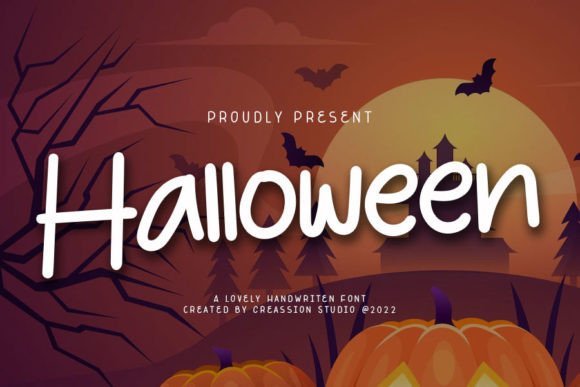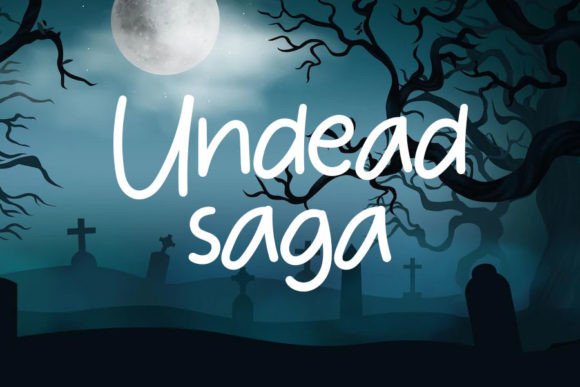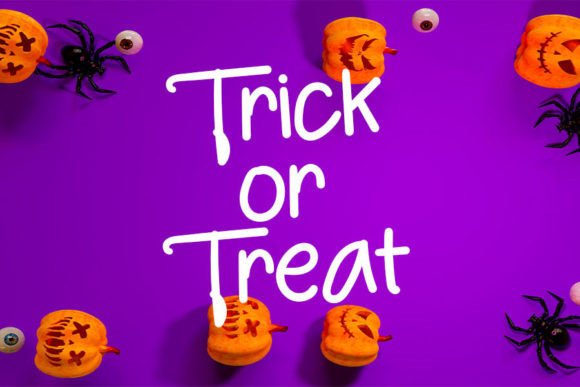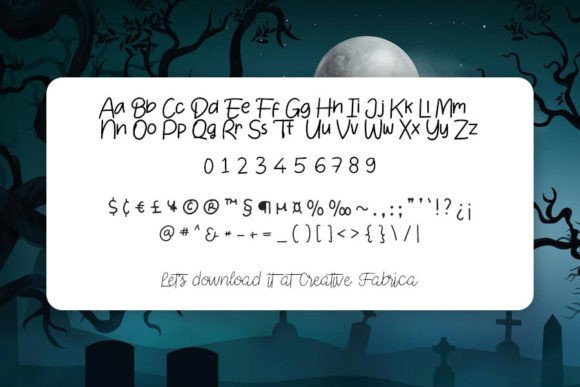
Halloween Magic in Every Line: Unleashing the Power of Halloween Font
Do you remember the excitement of rummaging through your parents’ attic, searching for the perfect costume to wear on Halloween night? The thrill of discovering a hidden treasure, the joy of creating something from scratch, and the satisfaction of bringing your imagination to life – these are the moments that fuel our creativity. As designers, we strive to capture that same magic in our work, to create something that sparks imagination and connects with our audience.
That’s where the Halloween Font comes in – a playful and modern handwritten font designed to add a touch of whimsy to any project. Whether you’re working on a spooky Halloween design or a playful brand identity, this font is the perfect tool to bring your vision to life. Its versatility and charm make it a valuable asset for designers looking to add a personal touch to their work.
Halloween Font Key Features
- Font Family: The Halloween font is a custom-designed font, often referred to as “Halloween” or “Spooky”.
- Unique Characteristics: The font features a spooky, handwritten style with intricate details, making it perfect for Halloween-themed designs and decorations.
Halloween Font Review
I recently had the chance to experiment with the Halloween Font, and I have to say it’s a unique and playful addition to any design project.
- ✨ The font’s eclectic mix of spooky and whimsical elements is perfect for capturing the essence of Halloween.
- ✨ The font is highly customizable, allowing you to adjust the color, size, and style to fit your design needs.
- ✨ The Halloween Font is well-suited for titles, headings, and other display text, where its bold and eye-catching design can really shine.
- ⚠️ The font’s design can feel overwhelming or cluttered if used extensively throughout a design.
- ⚠️ Some characters may not be as well-designed as others, which can affect the overall readability of the text.
- ⚠️ The font may not be suitable for body text or large blocks of text, where its bold design can be fatiguing to read.
The Halloween Font is a fun and creative addition to any design project, but it’s essential to use it judiciously to avoid overwhelming the viewer. When used thoughtfully, this font can add a touch of spooky charm to your designs.
The Halloween font is perfect for creating spooky invitations, party decorations, and social media graphics. You can also use it for creating custom Halloween-themed merchandise, such as t-shirts, mugs, and stickers. To get the most out of the font, experiment with different combinations of fonts, graphics, and colors to create a unique and eye-catching design.
Alternatives to Halloween Font for Designers
Great Vibes is a beautiful, hand-drawn script font that can evoke a sense of whimsy and magic. It’s perfect for designers who want to create a spooky yet elegant atmosphere. Great Vibes is more refined and sophisticated compared to Halloween Font, making it suitable for high-end designs.